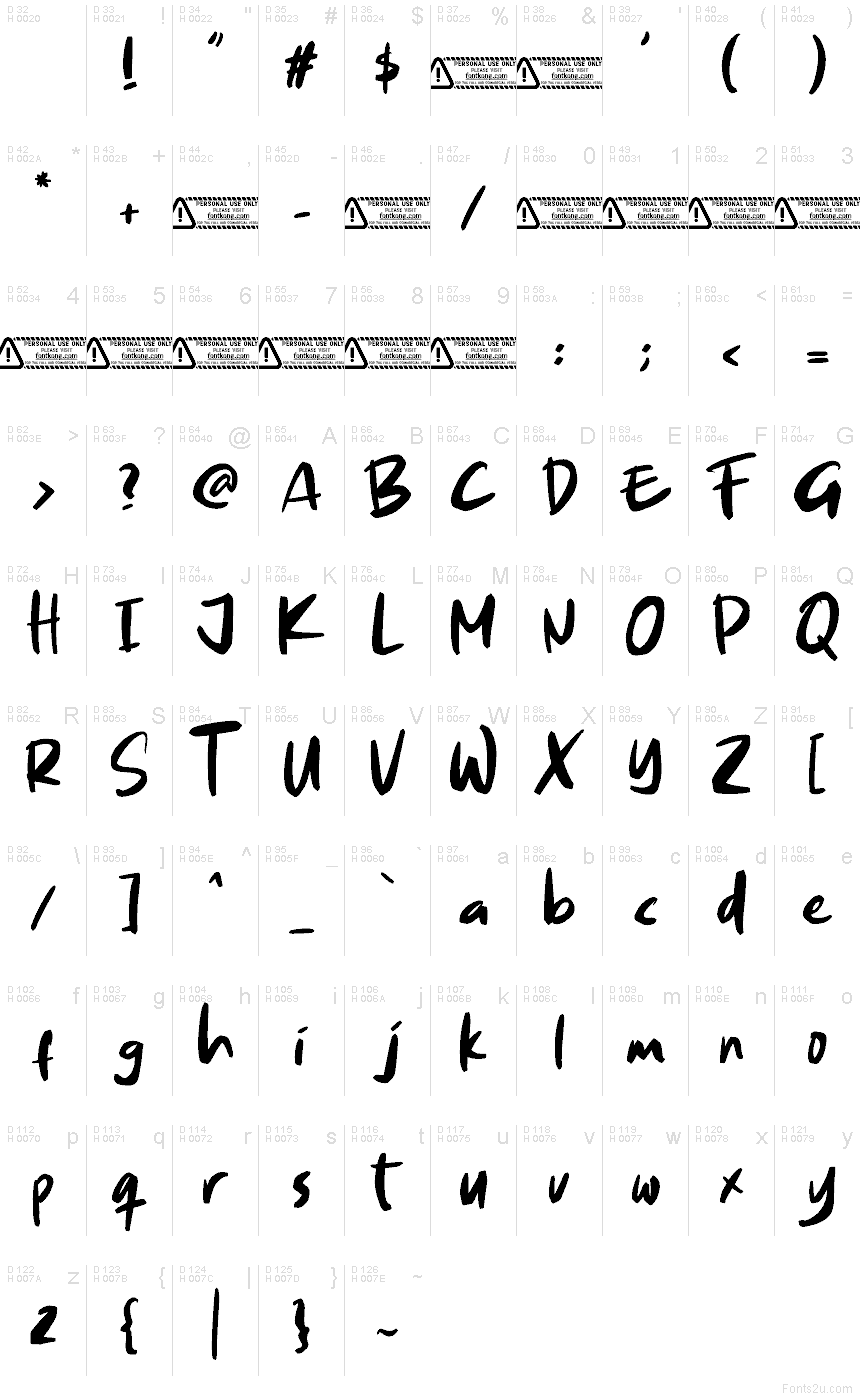
Zoneste PERSONAL USE ONLY!
Zoneste font by Kong Font is an expressive brush font remarkable for its contemporary look despite its handwritten style. The design features various dashes in different directions like hypnotic characteristic of a spiral compass, and unusual points of gravity. A slightly casual feel is prominent in the brush-lettered letterings.
Use Zoneste free brush font in branding designs from logos to packaging, book covers, posters, headlines, merchandise prints and labels. In websites and applications it can serve for headings or even be the fronting typeface for an entire project identity.